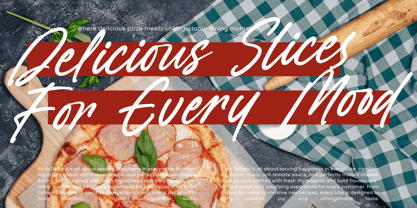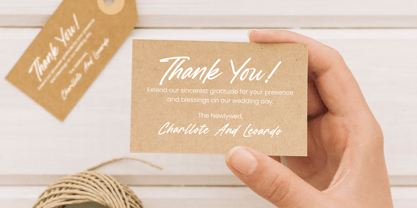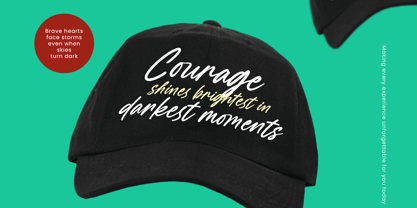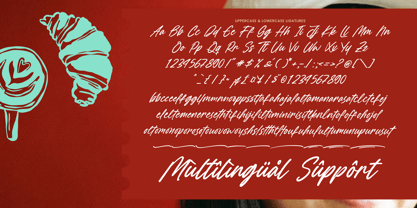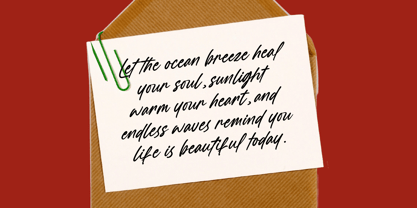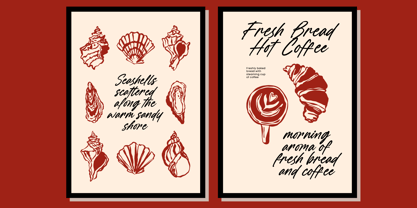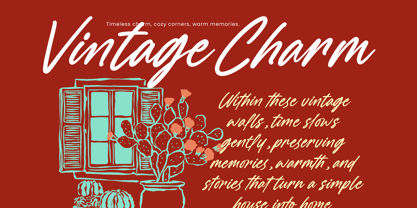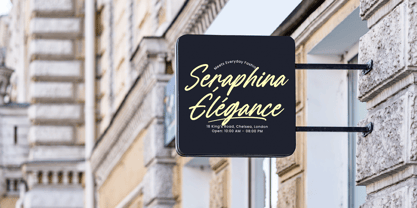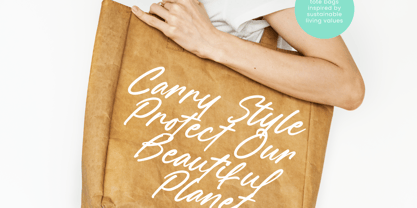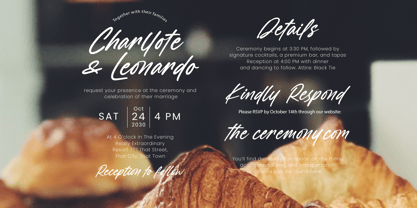
Letter Grace
von Letterena Studios
Die Schriftfamilie Letter Grace wurde von Heru Utama Putra entworfen und von Letterena Studios veröffentlicht. Letter Grace enthält 2 Stile und Familienpaketoptionen. Mehr über diese Familie
Letter Grace - Modern Handwritten Brush , Letter Grace is a modern handwritten brush font designed with smooth flowing strokes, natural movement, and an effortless elegant rhythm that feels bright, expressive, and contemporary. The letterforms combine soft curves with confident brush texture, creating a refined yet approachable character that works beautifully for stylish branding and creative compositions. Featuring 2 styles, 80 ligatures, and full multilingual support, Letter Grace offers flexibility for dynamic typography while maintaining a clean, graceful appearance. This font is ideal for logos, fashion branding, beauty products, social media graphics, posters, invitations, editorial layouts, and lifestyle content that demands a modern handwritten touch. Optimized for both digital and print use, Letter Grace delivers smooth elegance and visual charm, making it a perfect choice for designers seeking a sophisticated brush script with personality and flow.
Designer: Heru Utama Putra
Foundry: Letterena Studios